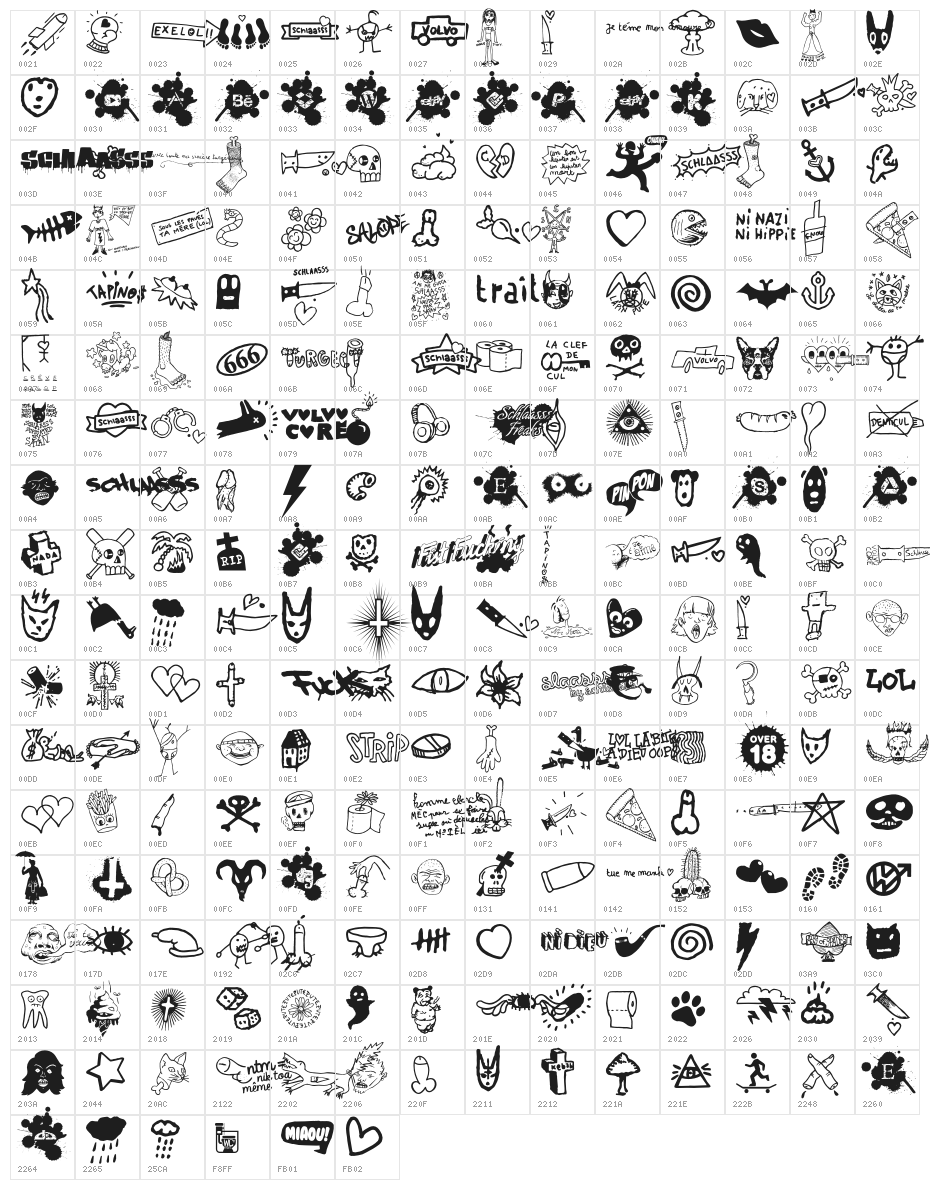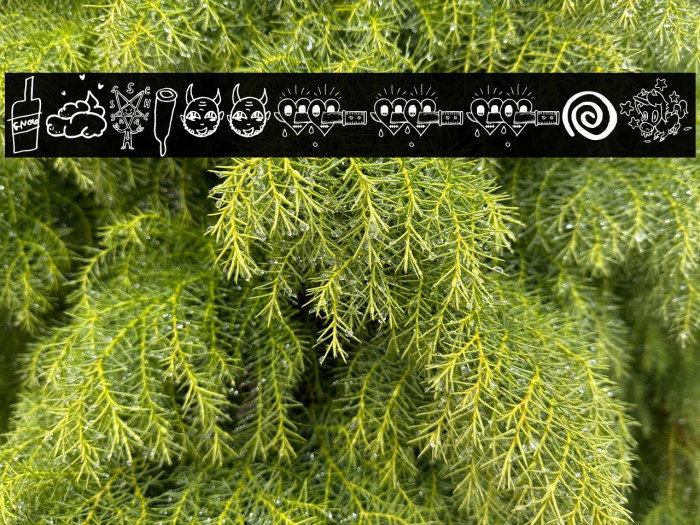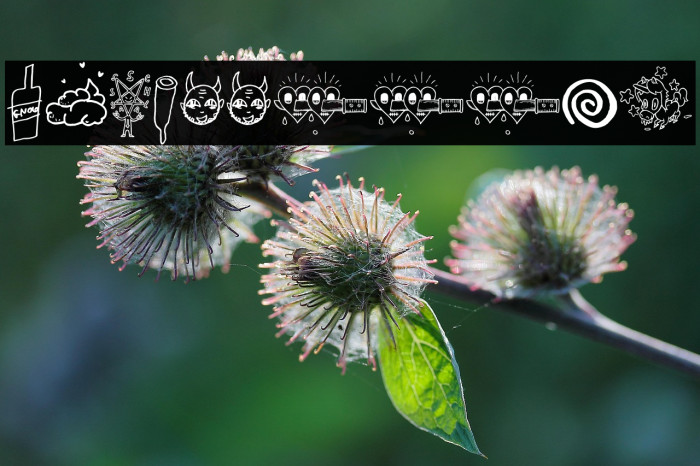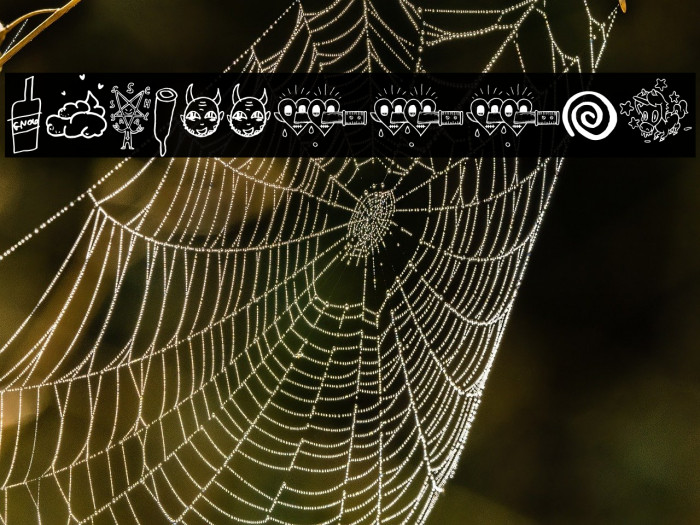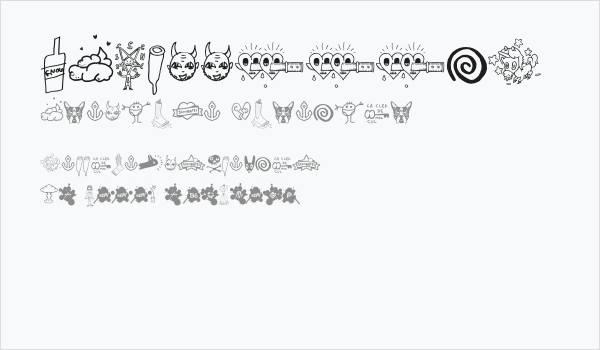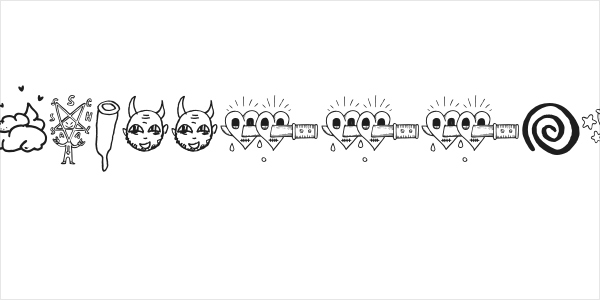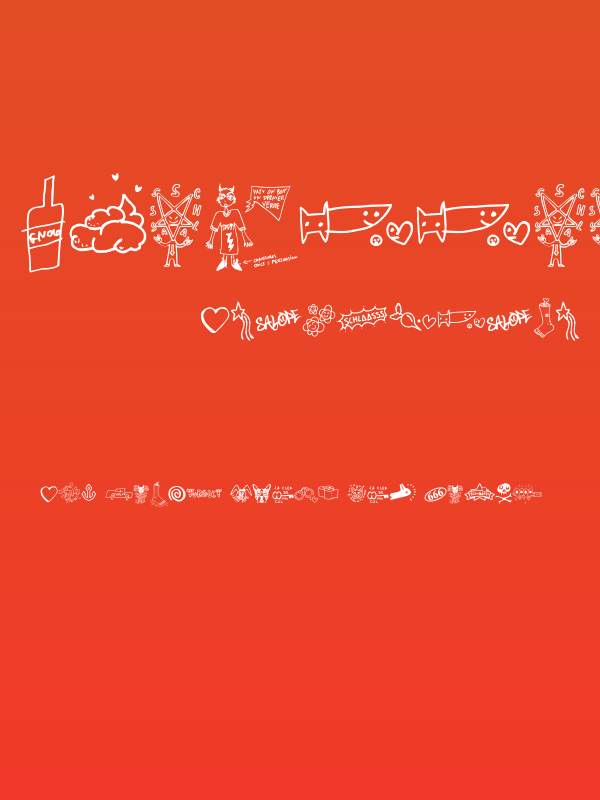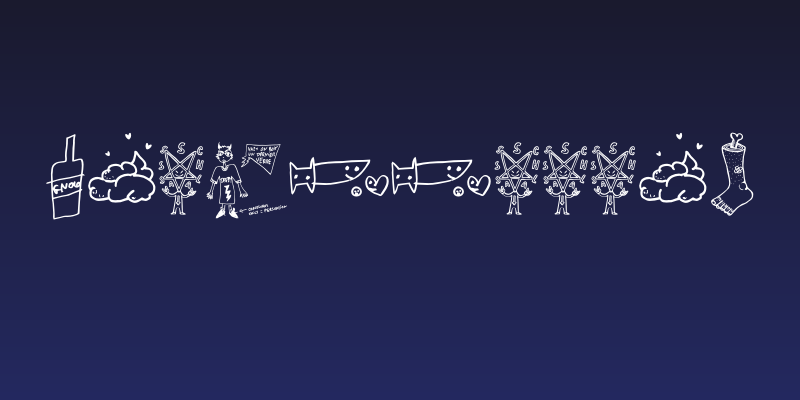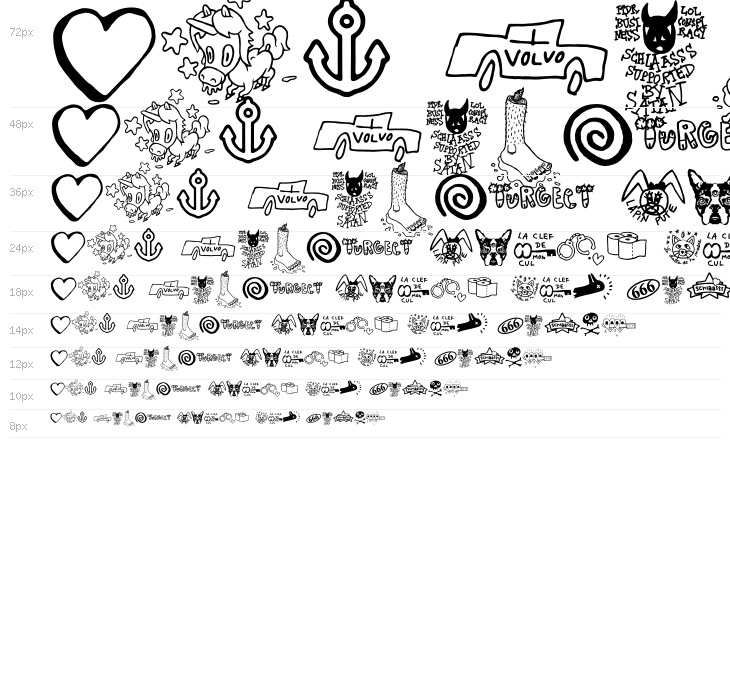
WCSlaasssch Font
WCSlaasssch Description
A highly decorative and playful dingbat font composed of hand-drawn doodles, cartoonish icons, and graffiti-style illustrations, featuring a mix of quirky characters, symbols, and expressive elements with a rough, sketchy line quality.
| Overall Style | Decorative, Playful, Graffiti, Hand-drawn |
| Use Case | Decorative elements, icons, visual accents, informal branding. |
| Proposed Projects | Posters, zines, album covers, streetwear branding, youth event flyers, creative social media graphics. |